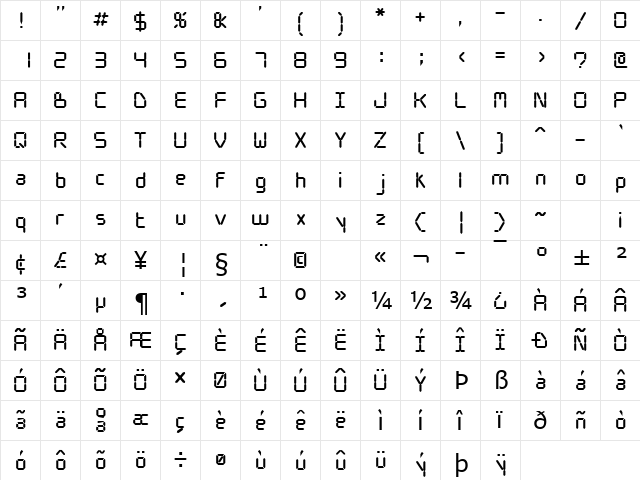
WW Digital Regular
| Foundry | MJP WebWorks USA LLC |
| Designer | MJP WebWorks USA LLC |
Design Context for WW Digital Typeface
WW Digital has a distinctly futuristic character, with geometric precision and clean angles that feel at home in technology, gaming, and sci-fi contexts.
Pro Tip: Try WW Digital with generous letter-spacing in UI labels and navigation — the geometric forms benefit from room to breathe.